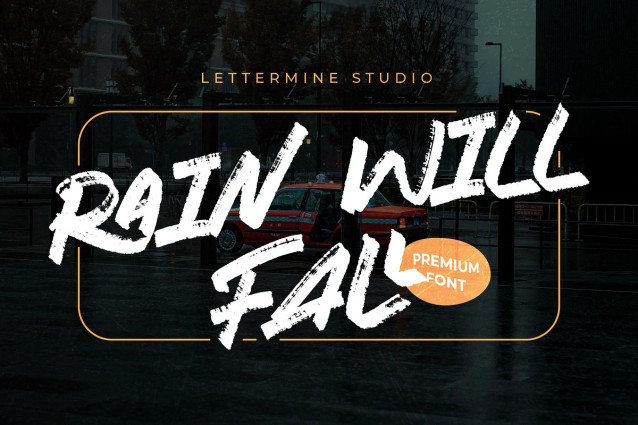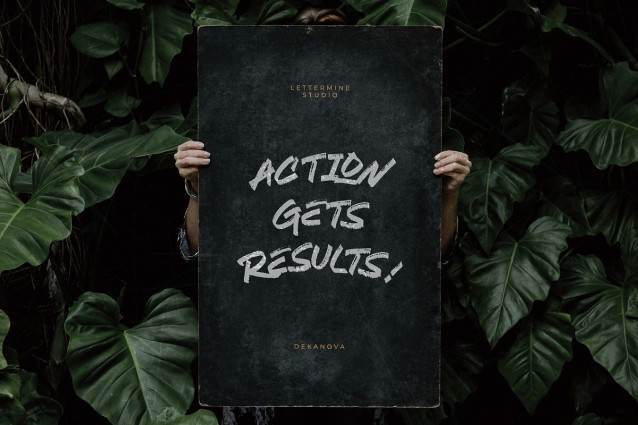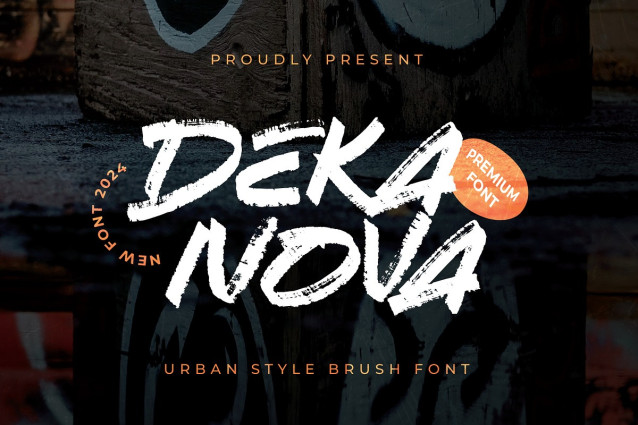
Dekanova Font
Dekanova Font is not just a font; it’s a brushstroke masterpiece crafted to elevate your designs to the next level. With its dynamic brush style, this font brings a unique flair to any project, whether it’s branding, packaging, posters, or social media graphics.